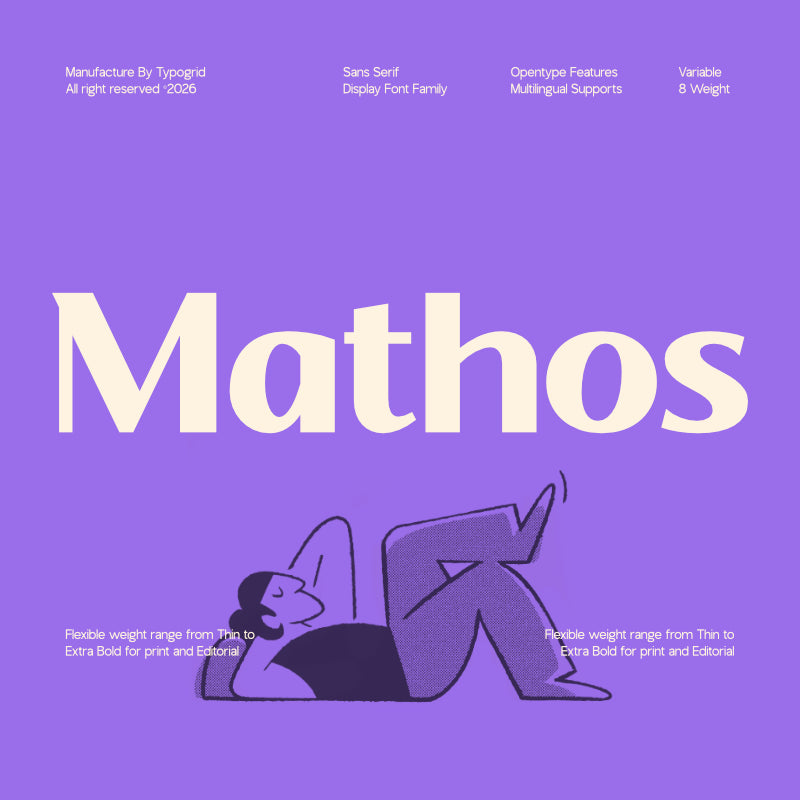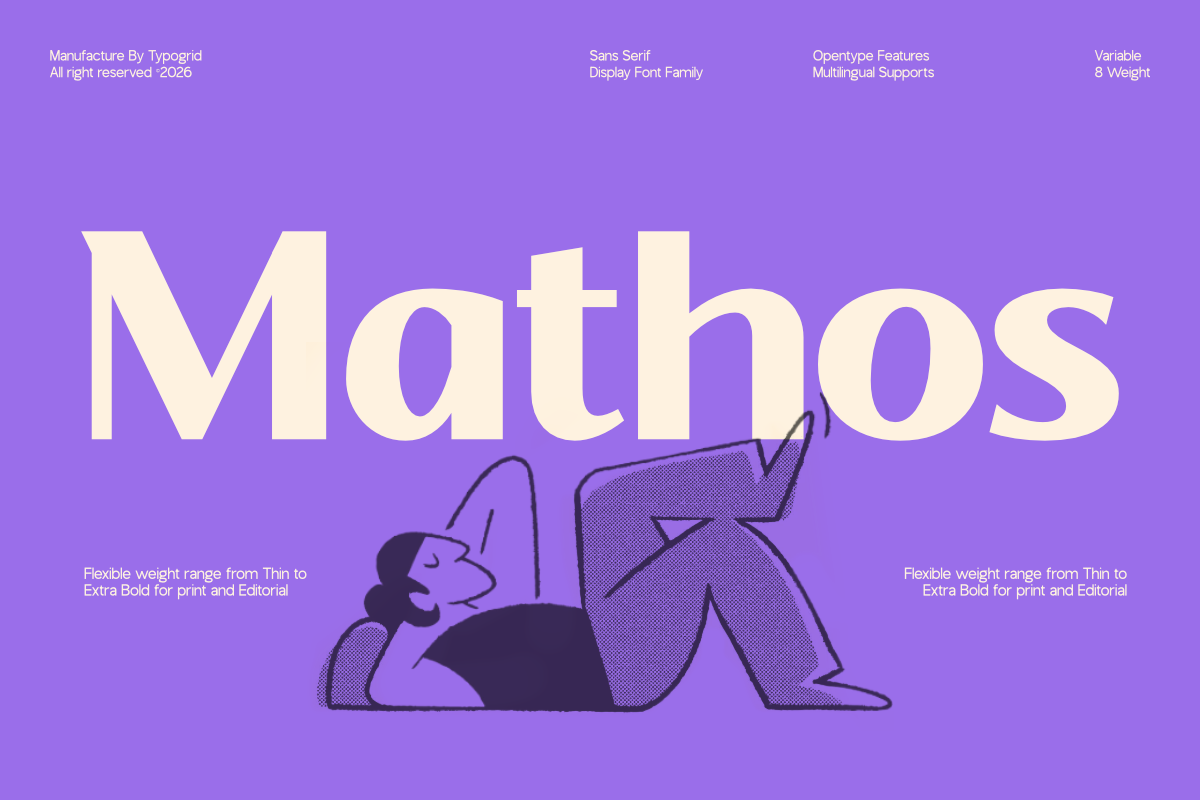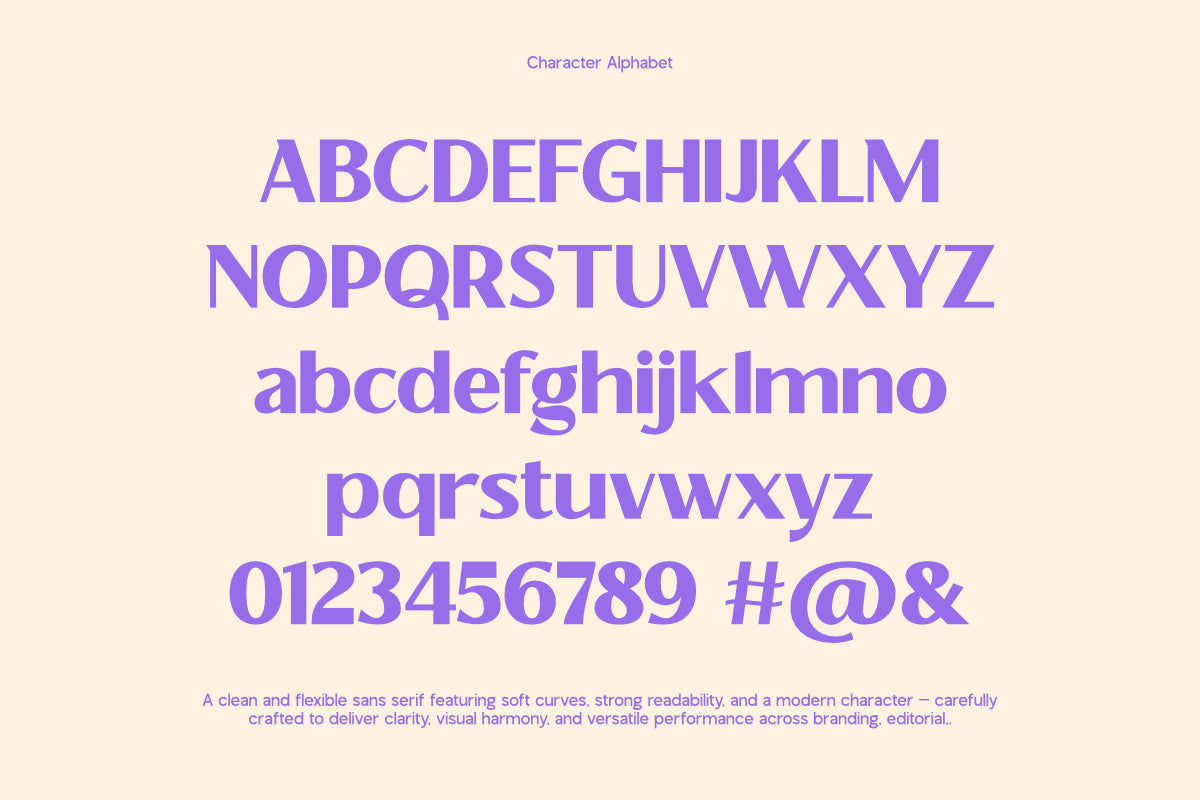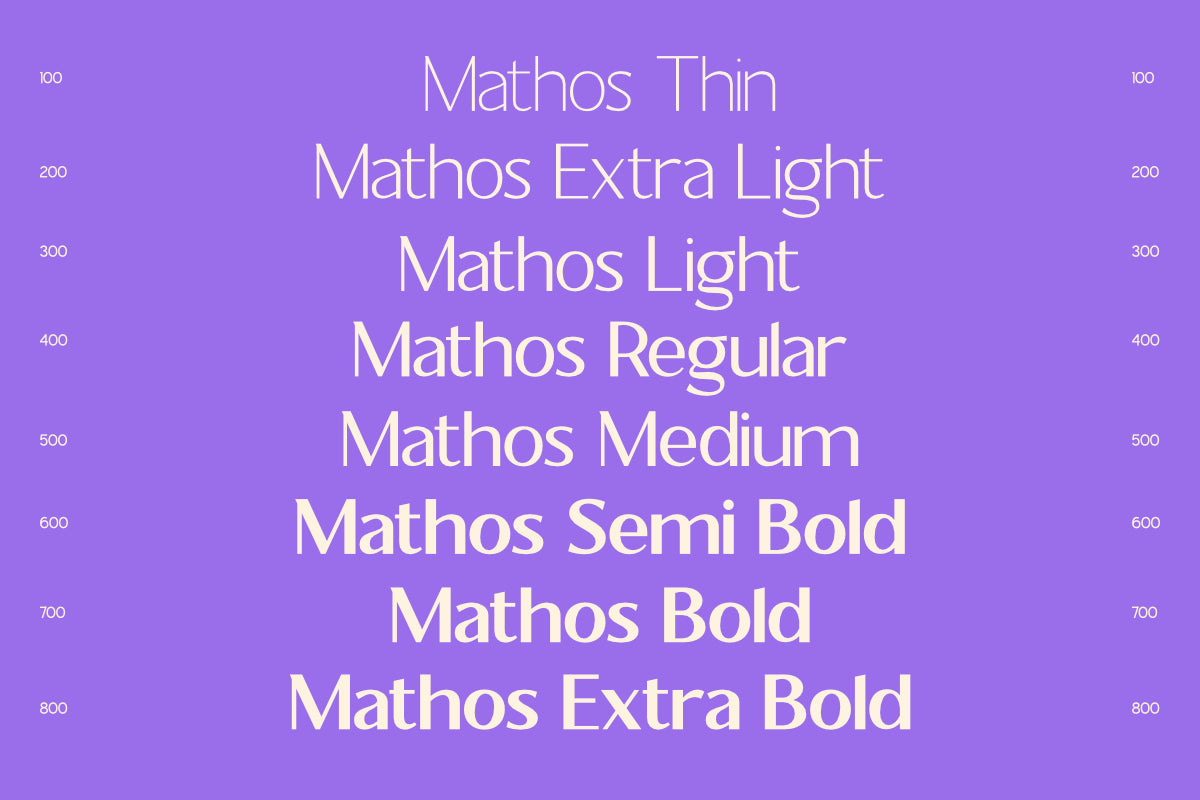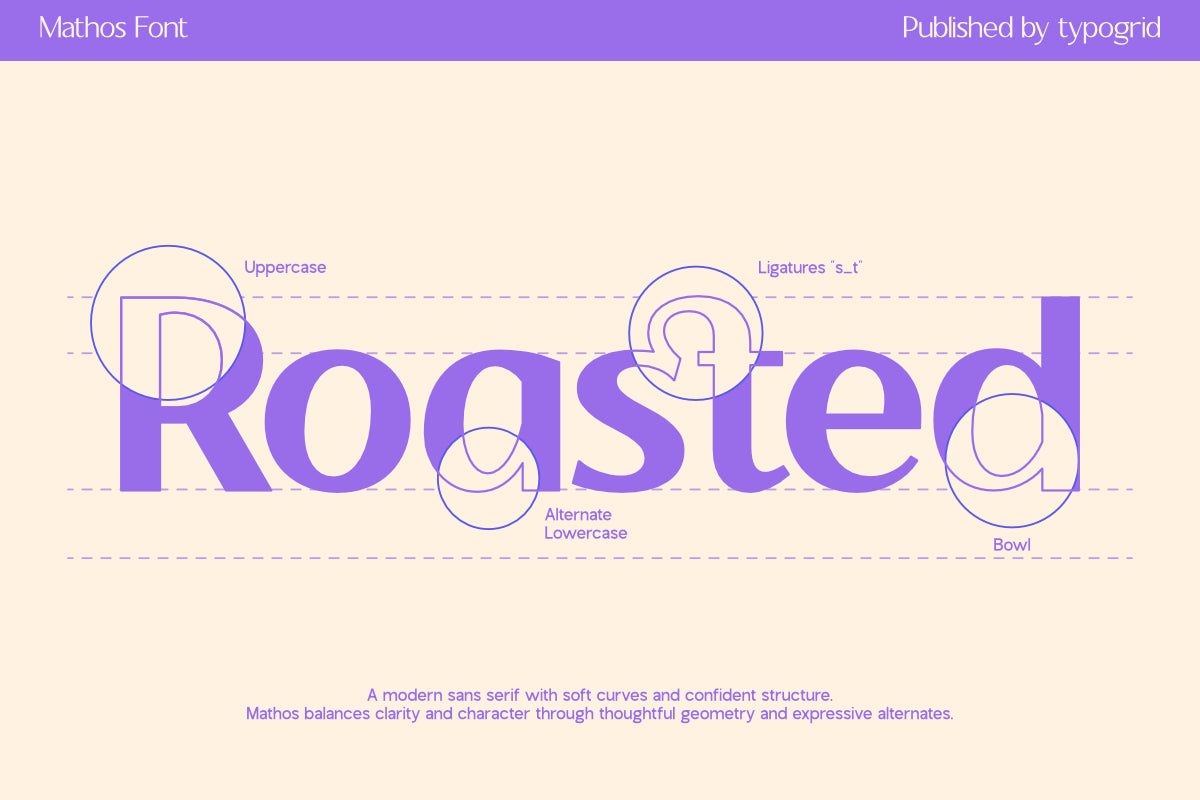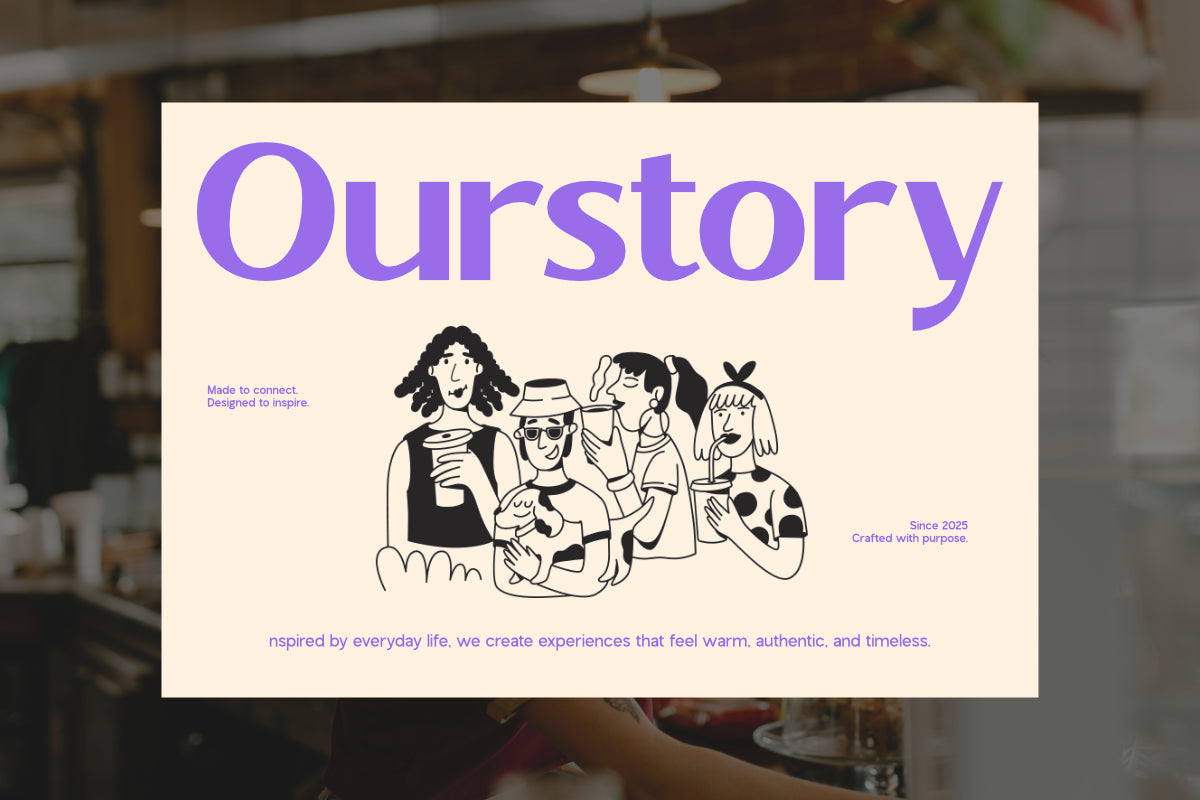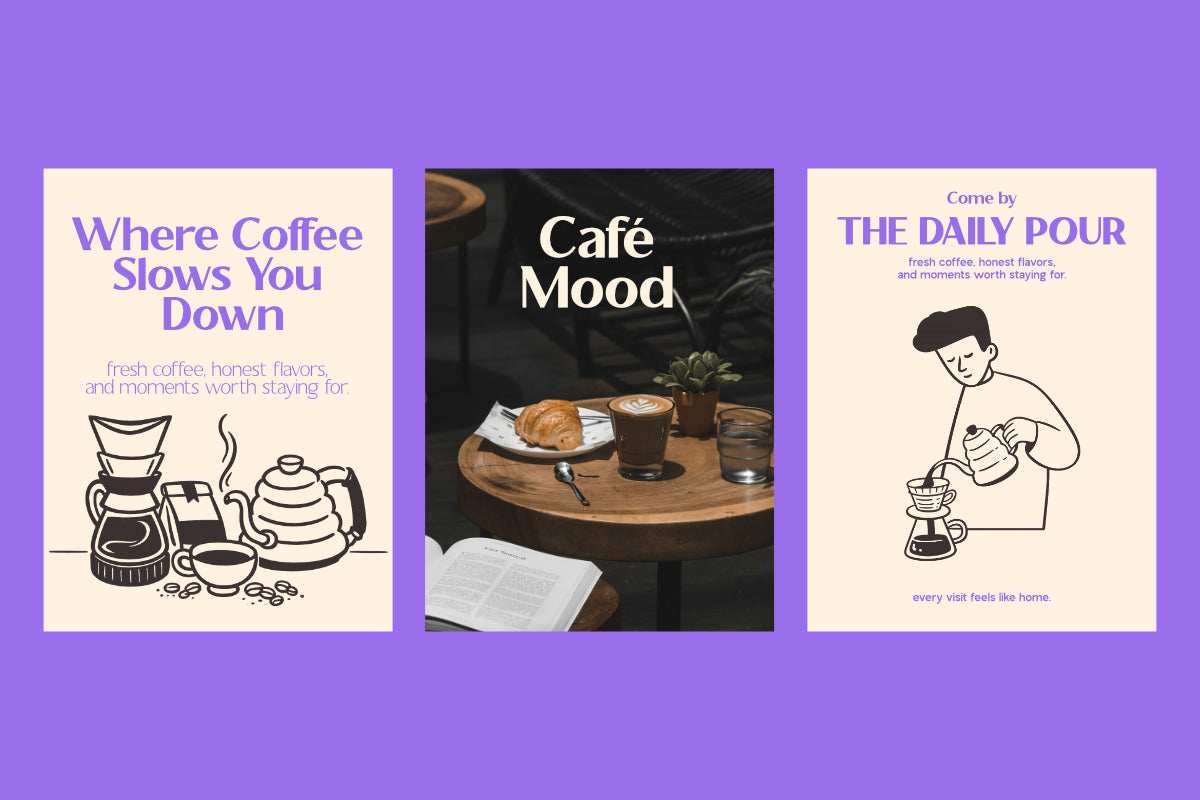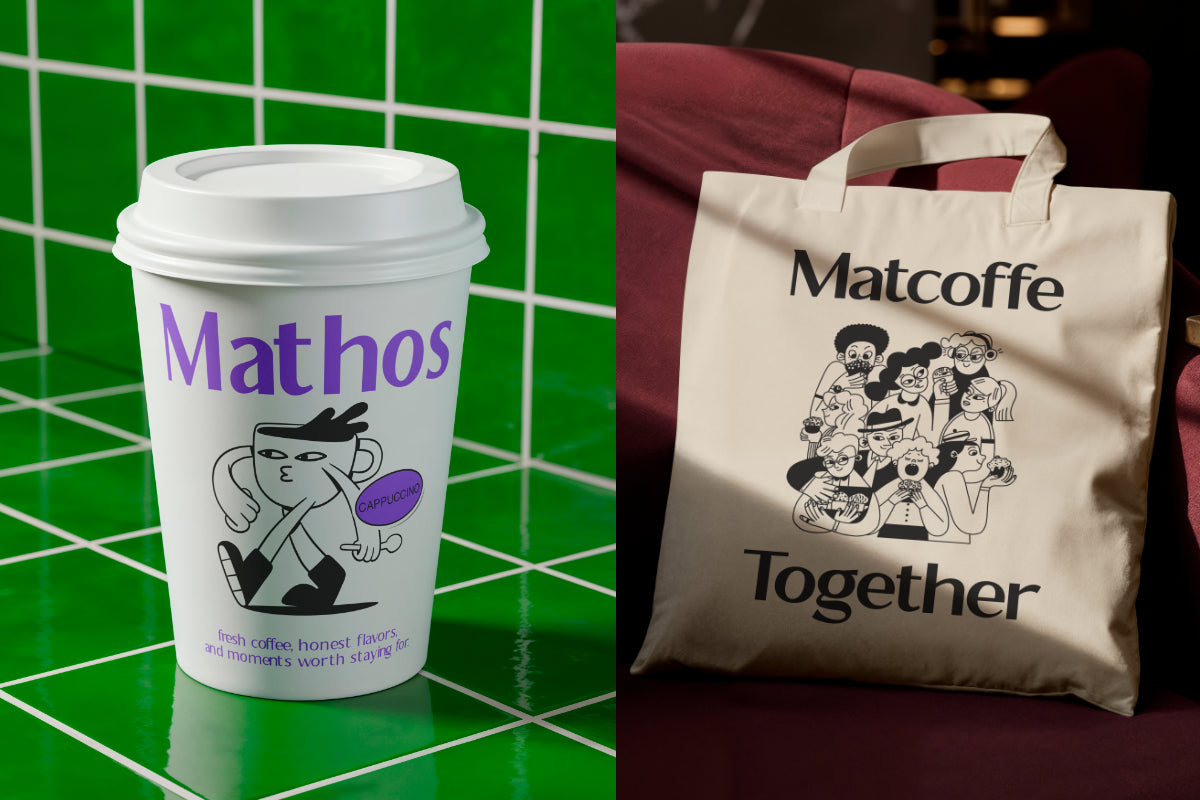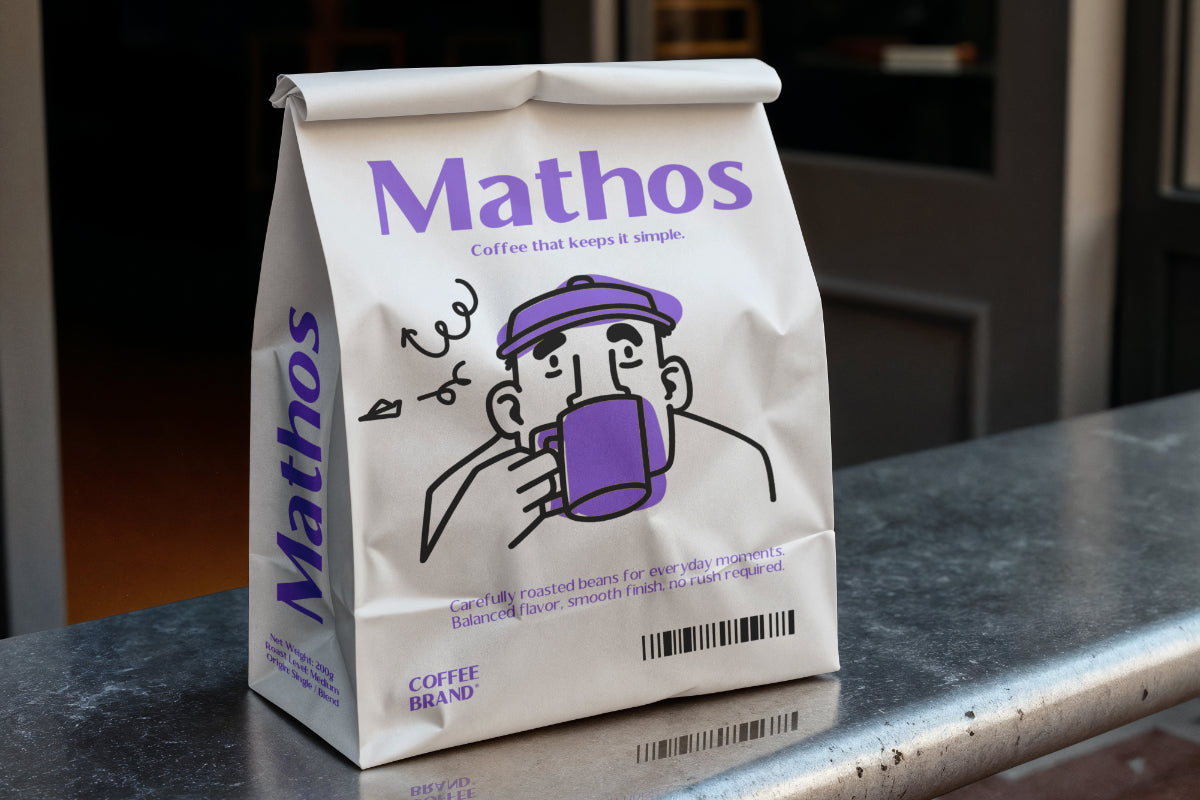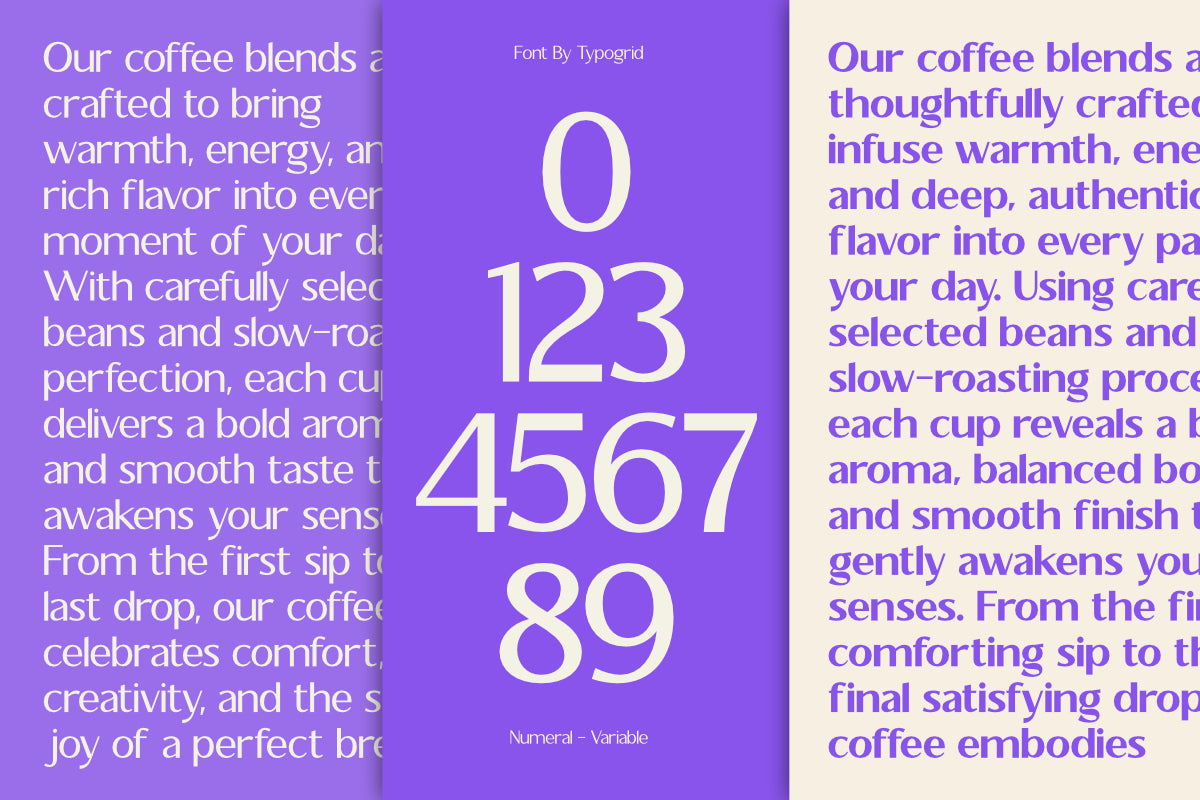
TG Mathos – Modern Display Sans Serif Font
Mathos is a modern display sans serif font designed for bold visual impact and clean readability. Built with strong geometry and smooth proportions, Mathos works perfectly for headlines, posters, branding, editorial layouts, and digital interfaces.
With its flexible weight range and contemporary character shapes, Mathos adapts seamlessly across both print and digital media—making it a versatile choice for designers who value clarity and style.
✦ Key Features
Display Sans Serif Font Family
8 Weights — from Thin to Extra Bold
Variable Font Included
OpenType Features
Carefully crafted kerning & spacing
Optimized for print & editorial use
✦ Ideal For
Branding & logo design
Posters & headlines
Editorial & magazine layouts
Social media & marketing visuals
Web & UI design
Mathos delivers a confident, modern voice—minimal yet expressive—perfect for projects that demand strong typographic presence without sacrificing elegance.
TG Mathos is a modern display sans serif font family with 8 weights ranging from Thin to Extra Bold, including a variable font, OpenType features, and multilingual support. It includes carefully crafted kerning and spacing, optimized for both print and digital use.